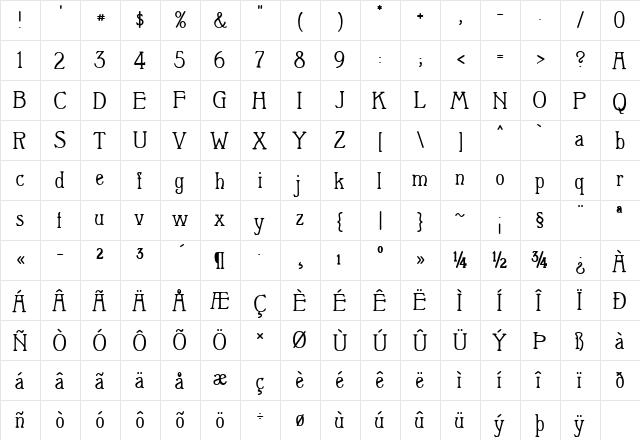
Berolina Regular
| Foundry | Peter Wiegel |
| Designer | Peter Wiegel |
Design Context for Berolina Typeface
Berolina takes a measured approach to typography — its balanced proportions and neutral character make it a reliable workhorse for both digital and print work.